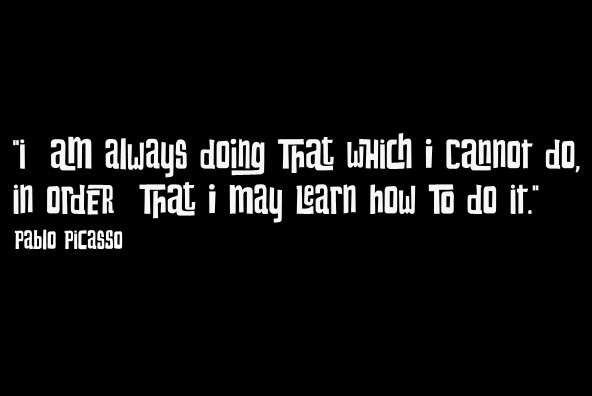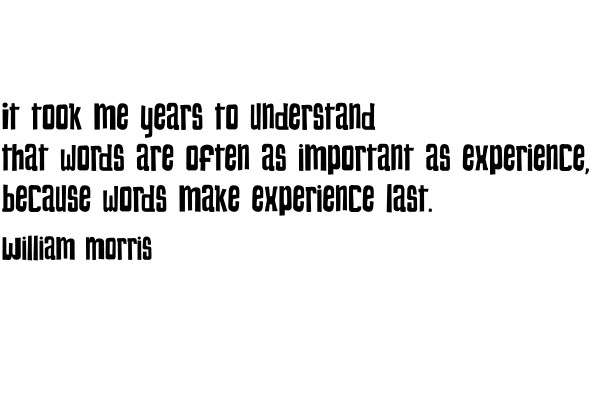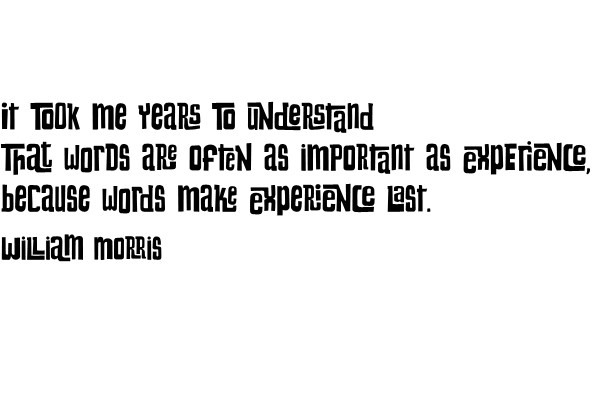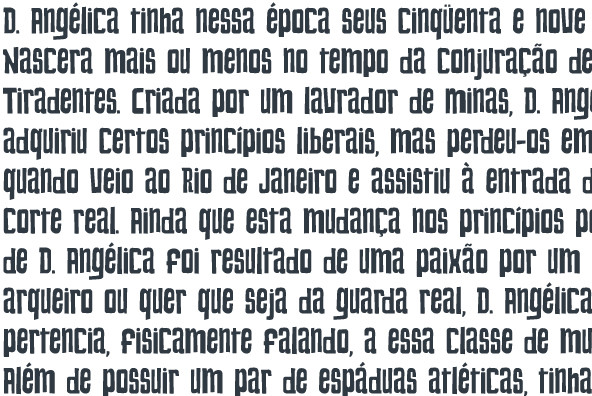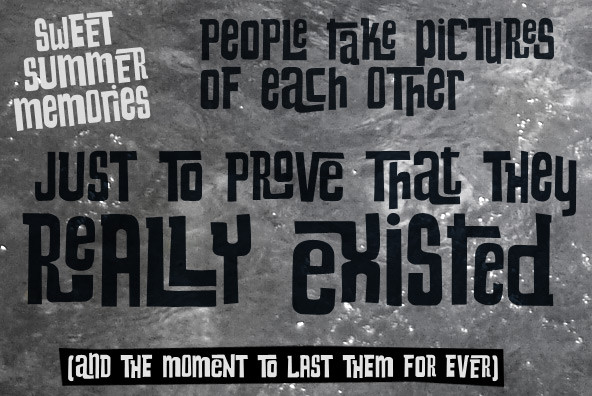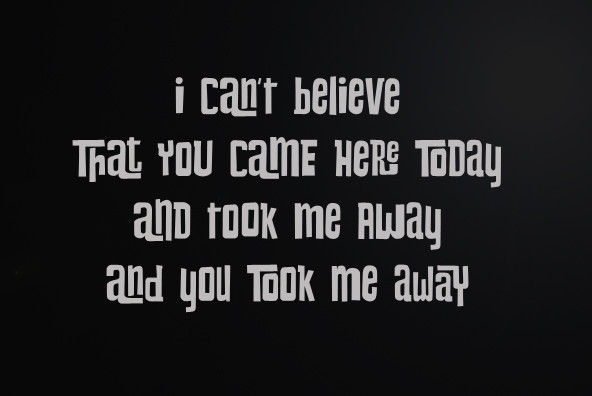
Changing is a lively font, loaded with many automatic interlock pairs that do their magic in OpenType aware applications. Its peculiar design and such choices for letter combinations make this a very dynamic, spirited and useful typeface.